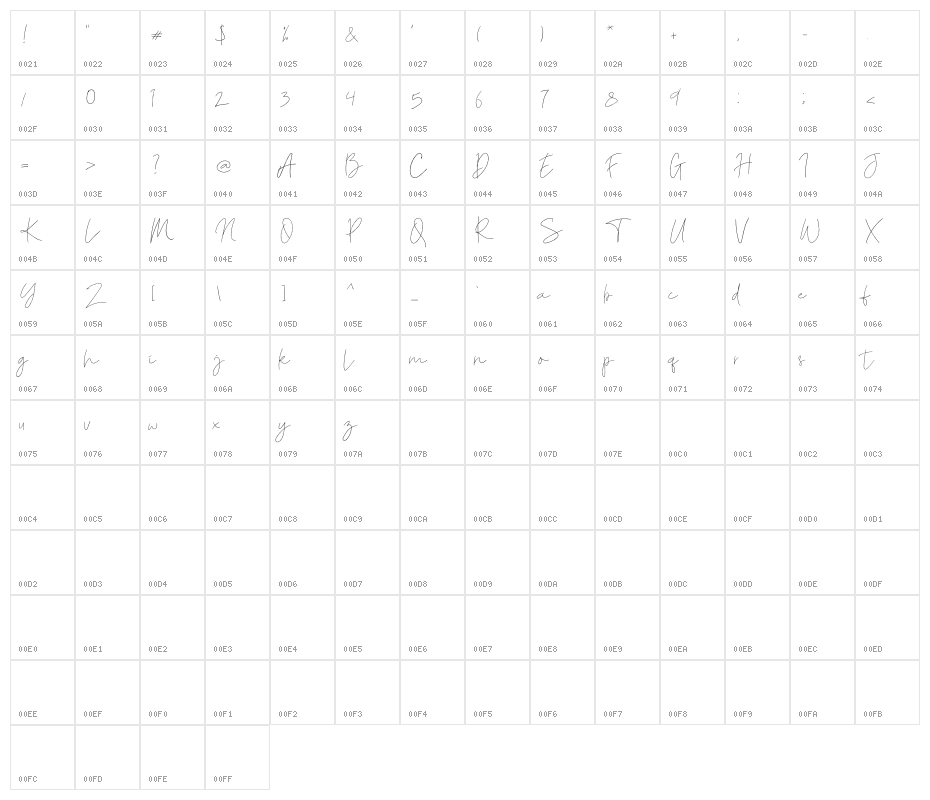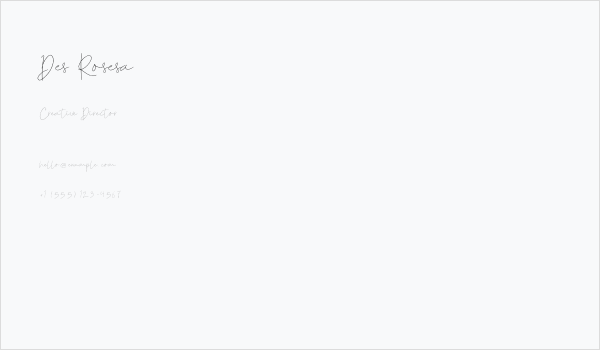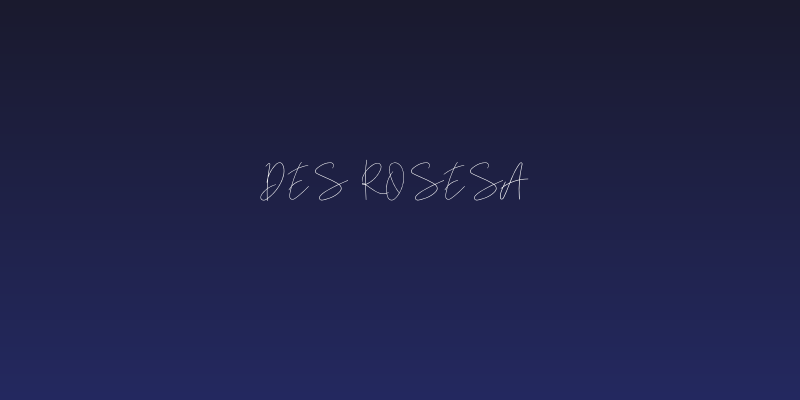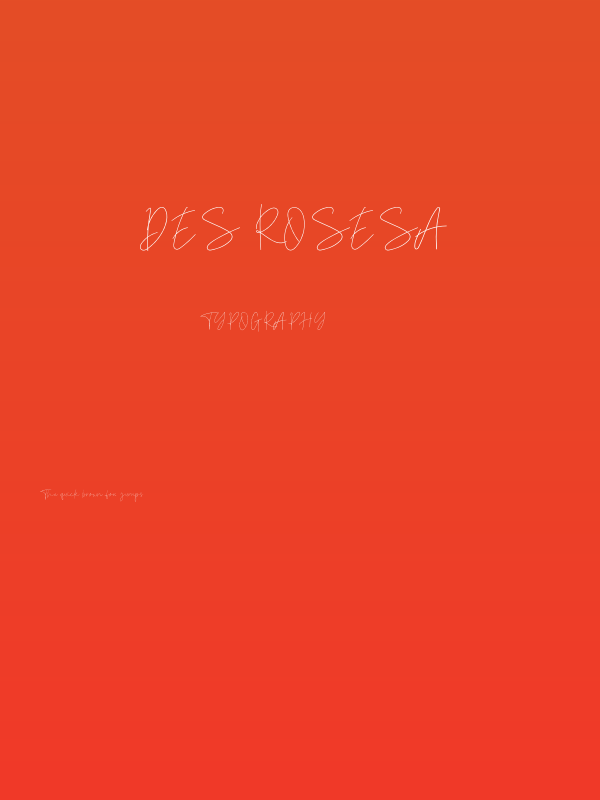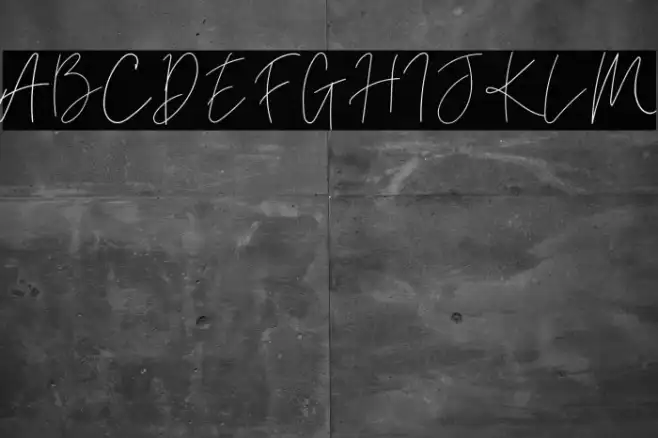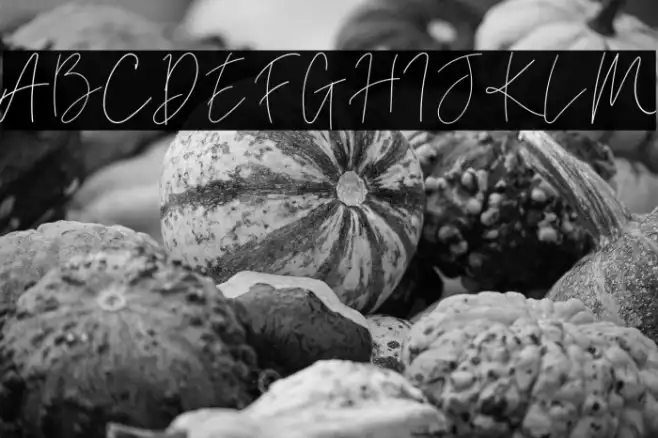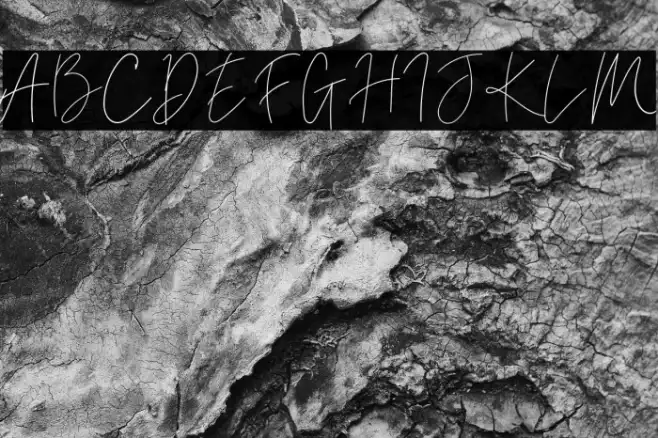
Des Rosesa Font
Des Rosesa Description
This font exudes a casual and elegant handwritten style, characterized by its flowing and interconnected letterforms. The strokes are thin and delicate, giving it a light and airy appearance. The uppercase letters maintain a consistent height, while the lowercase letters exhibit a playful variation in size and slant, adding to its informal charm. The numerals and special characters are crafted with the same fluidity, ensuring a cohesive look throughout. This font is perfect for projects that require a personal touch, such as invitations, greeting cards, or branding materials that aim to convey warmth and approachability.
| Overall Style | Casual, Elegant |
| Proposed Projects | Ideal for invitations, greeting cards, personal branding, and any project needing a warm, personal touch. |